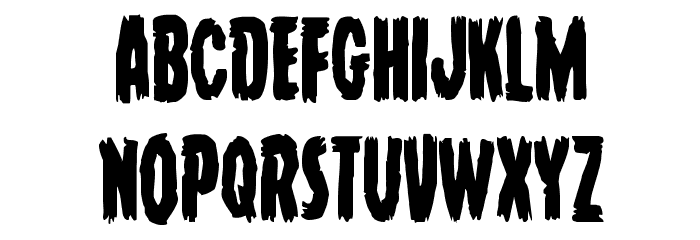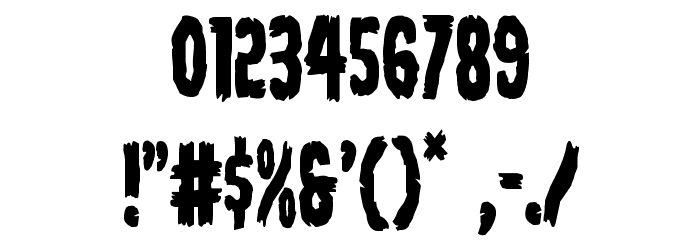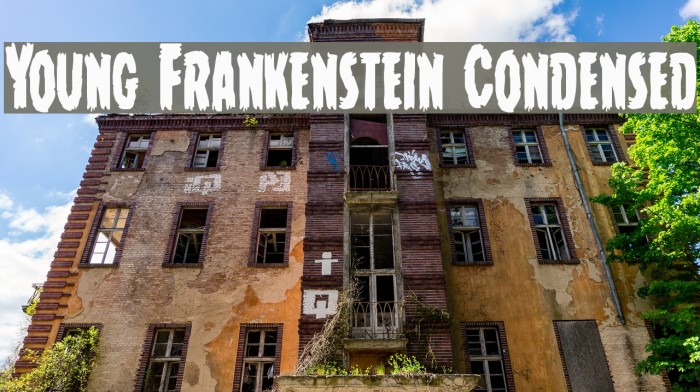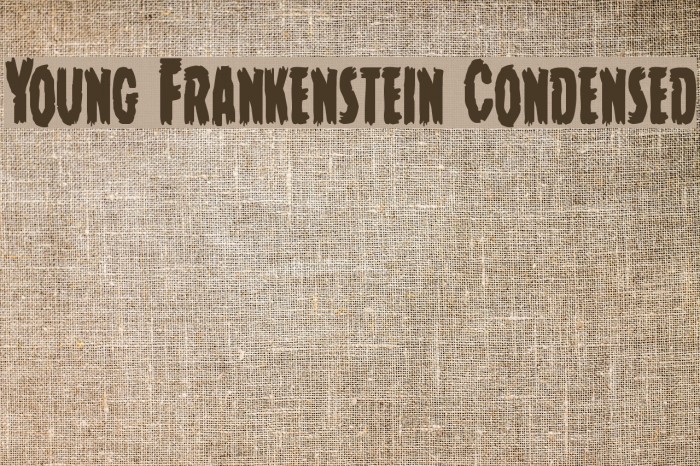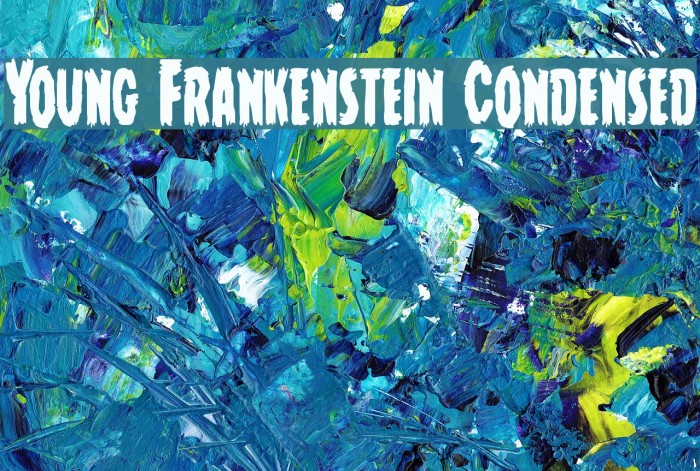
Young Frankenstein Condensed Font
This font features a bold and dramatic style with a condensed form, giving it a striking and impactful appearance. The characters are heavily stylized with rough, jagged edges that evoke a sense of horror or suspense, reminiscent of classic horror movie posters. The uppercase letters are particularly prominent, with a strong vertical emphasis that enhances their imposing presence. The numerals and special characters maintain the same rugged aesthetic, ensuring consistency across all glyphs. This font's unique design makes it ideal for creating a sense of tension and excitement in any project.
A bold, condensed font with a jagged, horror-inspired style.
- Proposed Projects: Ideal for horror movie posters, Halloween event flyers, or any design needing a dramatic and eerie touch.
- Character Spacing: Tight
- Use Case: Headlines, Posters, Logos